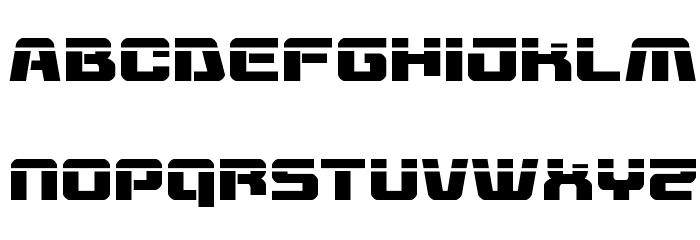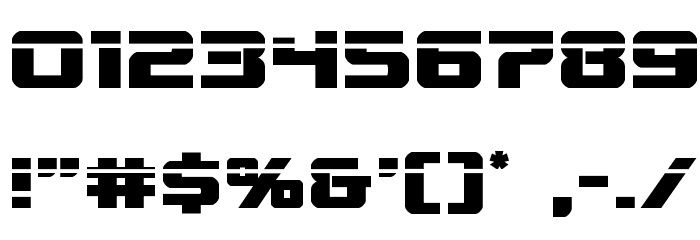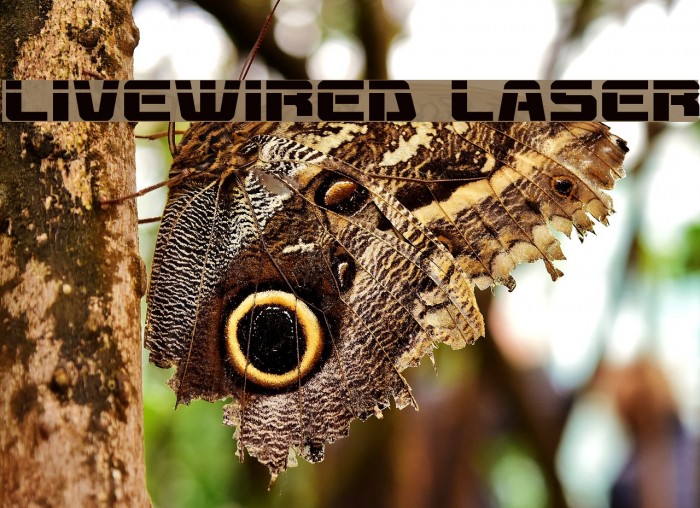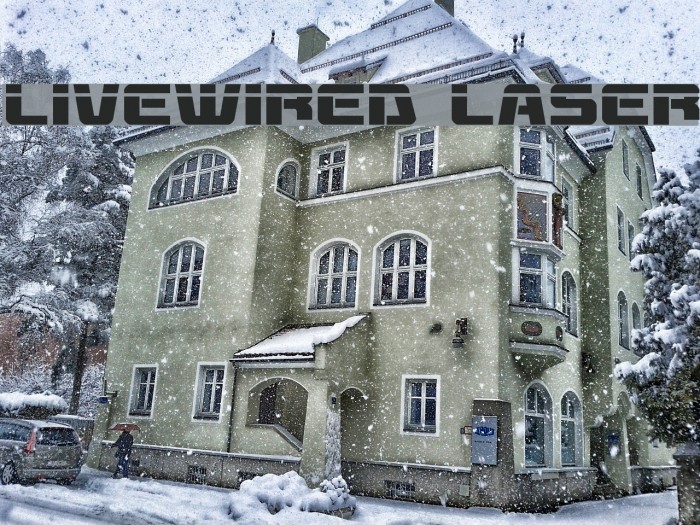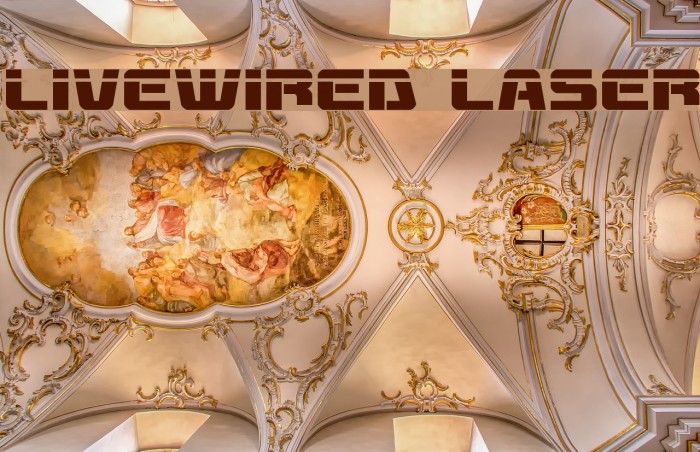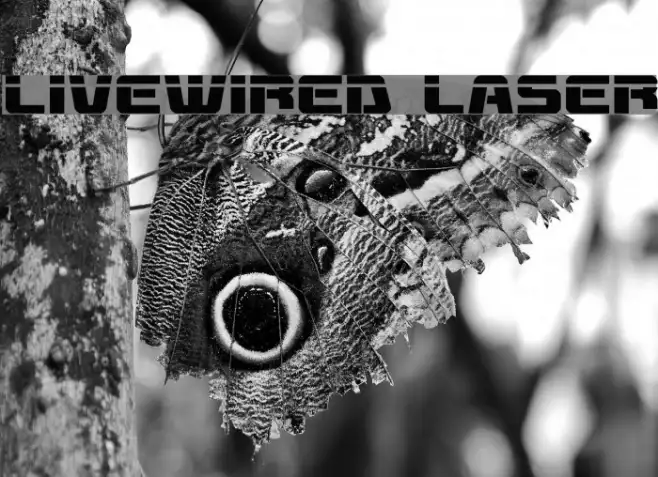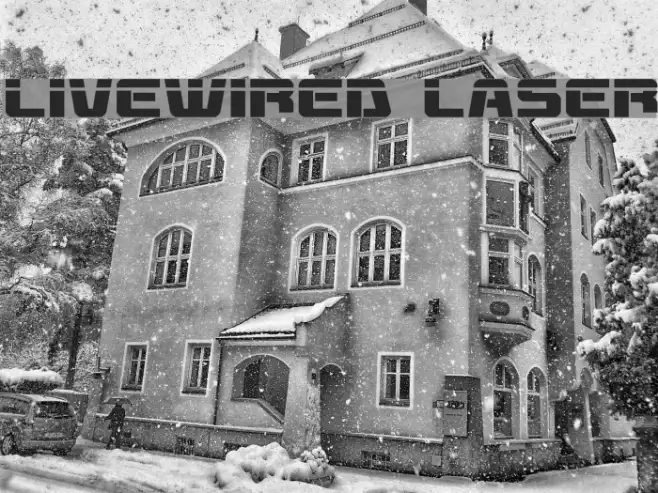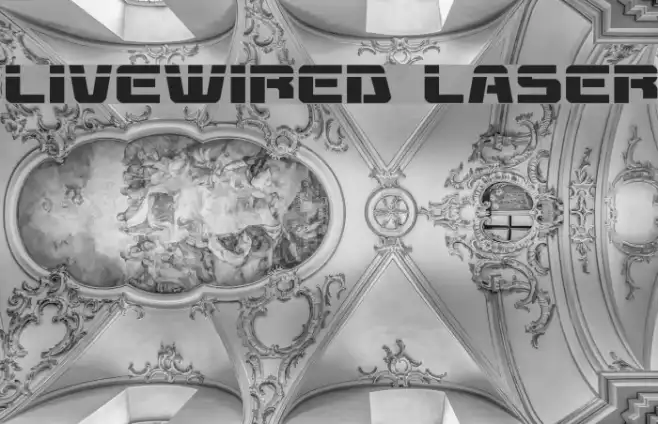
Livewired Laser Font
This font features a futuristic and bold design, characterized by its geometric shapes and sharp angles. The letters are constructed with a consistent thickness, giving it a strong and impactful appearance. The style is reminiscent of digital or technological themes, making it ideal for projects that require a modern and edgy look. The uppercase and lowercase letters maintain a uniform style, ensuring readability while adding a unique flair. The numerals and special characters are designed to match the overall aesthetic, providing a cohesive look across all elements.
A bold, futuristic font with geometric shapes and sharp angles.
- Proposed Projects: Ideal for technology branding, sci-fi posters, video game titles, and digital media.